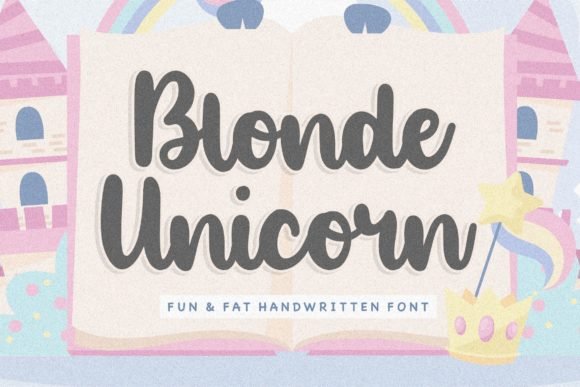
Unlock the Magic of Your Designs with Blonde Unicorn Font
Have you ever found yourself staring at a blank page, waiting for the perfect idea to strike? It’s a moment we’ve all experienced as creatives – the spark of inspiration that ignites a new project, and the rush of excitement that comes with bringing it to life. For designers, this moment is a thrill unlike any other. It’s the culmination of hours, days, and weeks of brainstorming, sketching, and experimenting – and the reward is a beautiful, one-of-a-kind creation that reflects our unique vision.
That’s where the Blonde Unicorn Font comes in – a sweet and flowing handwritten font that’s designed to bring your creative ideas to life. With its versatility and effortless charm, this font is the perfect addition to any design project. Whether you’re working on a wedding invitation, a children’s book, or a social media campaign, the Blonde Unicorn Font is sure to add a touch of magic to your work.
Key Features of Blonde Unicorn Font
- Font Family: Blonde Unicorn
- Unique Characteristics: Hand-drawn, whimsical design with a touch of elegance; Perfect for feminine, creative, and artistic projects
Blonde Unicorn Font Review
The Blonde Unicorn Font is a whimsical, handwritten font that has a lot of charm. ✨ It’s perfect for creating eye-catching headings and adding a touch of personality to your designs. The font’s irregularities and flourishes give it a unique, hand-painted feel that’s sure to grab attention.
One of the things I love about this font is its versatility. ✨ It works well for both digital and print designs, and can be used to create everything from quirky social media posts to elegant wedding invitations. The font also comes in a range of weights and styles, making it easy to customize to suit your needs.
- ⚠️ May not be suitable for formal or professional designs, as it can come across as too playful or casual
- ⚠️ Can be difficult to read at small font sizes, due to its irregularities and flourishes
Overall, I think the Blonde Unicorn Font is a great addition to any designer’s toolkit. While it may have some limitations, its unique charm and versatility make it a great choice for designers who want to add a touch of whimsy to their designs.
The Blonde Unicorn Font is ideal for:
Children’s book illustrations and design
Magazine and blog headers and titles
Any design project that requires a whimsical and playful touch